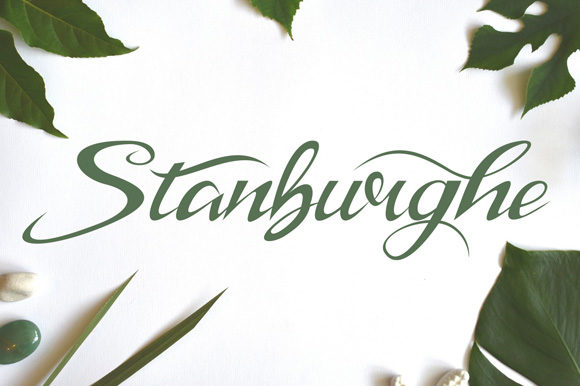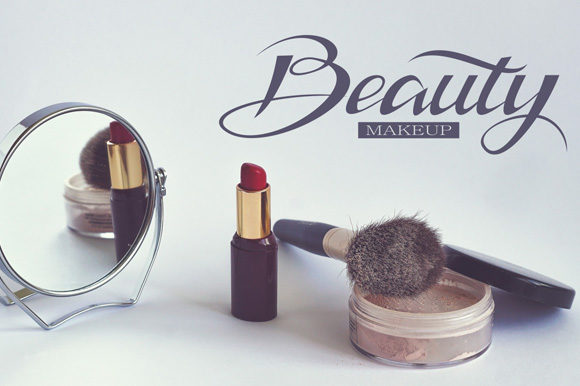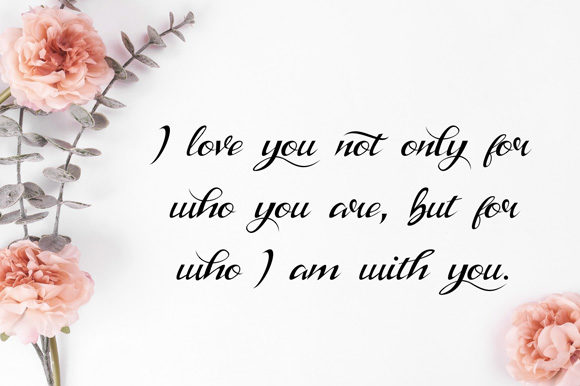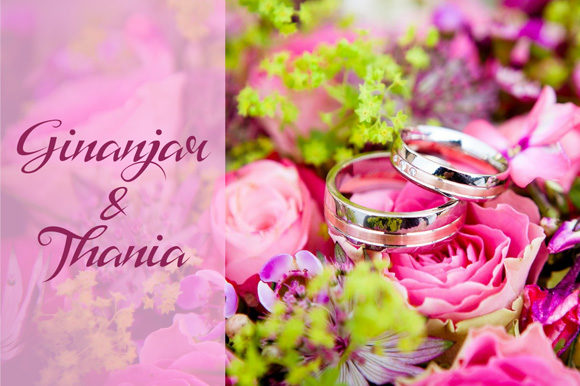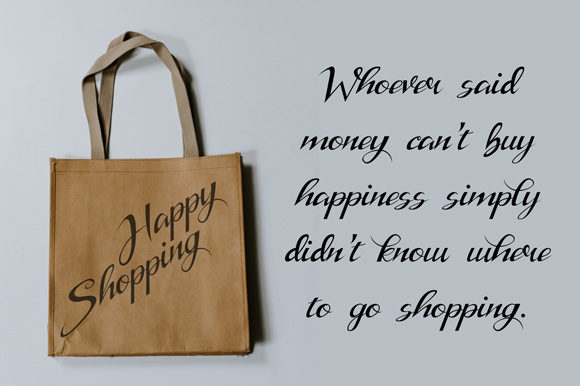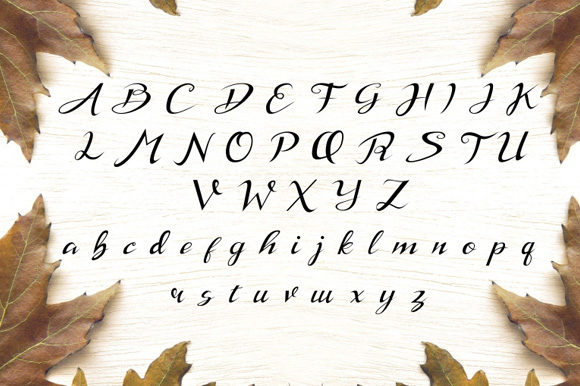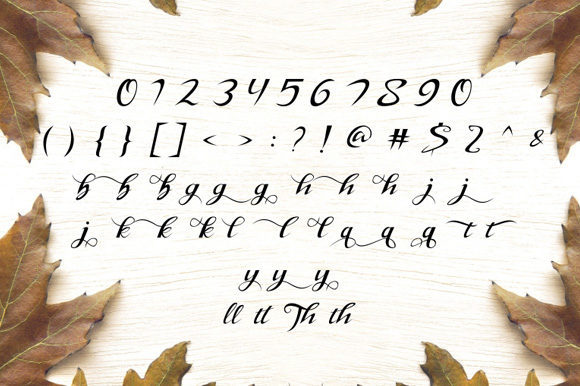
Stanburghe Font
About Stanburghe Font
Stanburghe is a friendly and modern script font with a fascinating style. It can add a romantic touch to any crafting project!